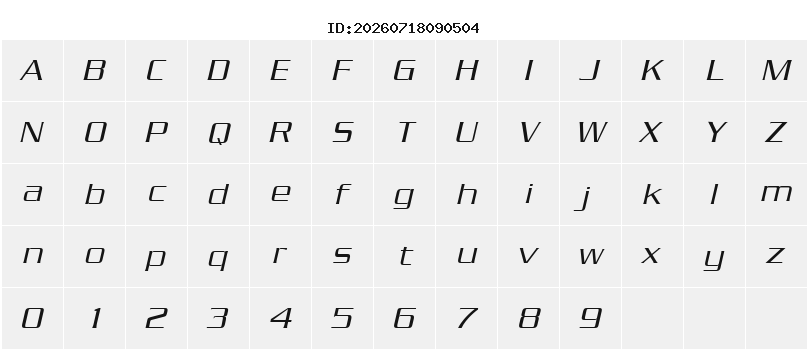
• Font Name: Chainlink
Chainlink.ttf is a modern, elegant sans-serif font designed for ultimate readability and visual harmony. Perfect for branding, headlines, web design, and print materials.